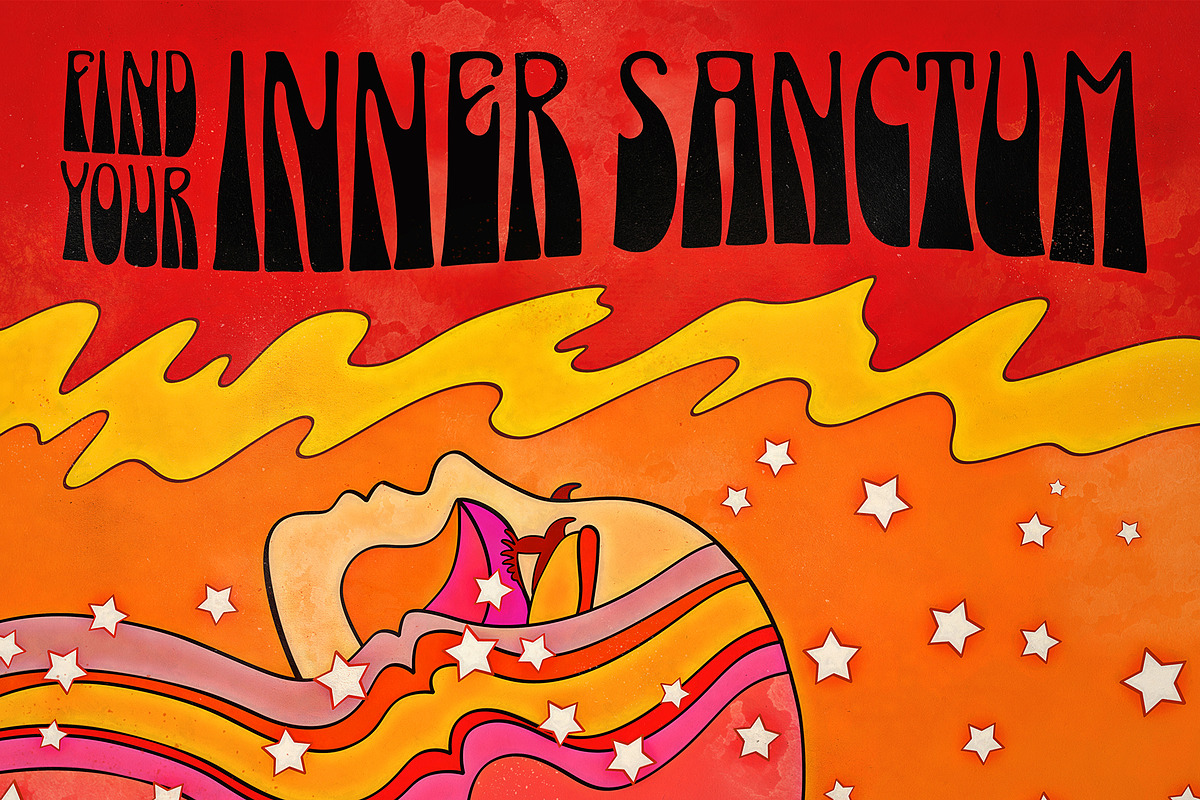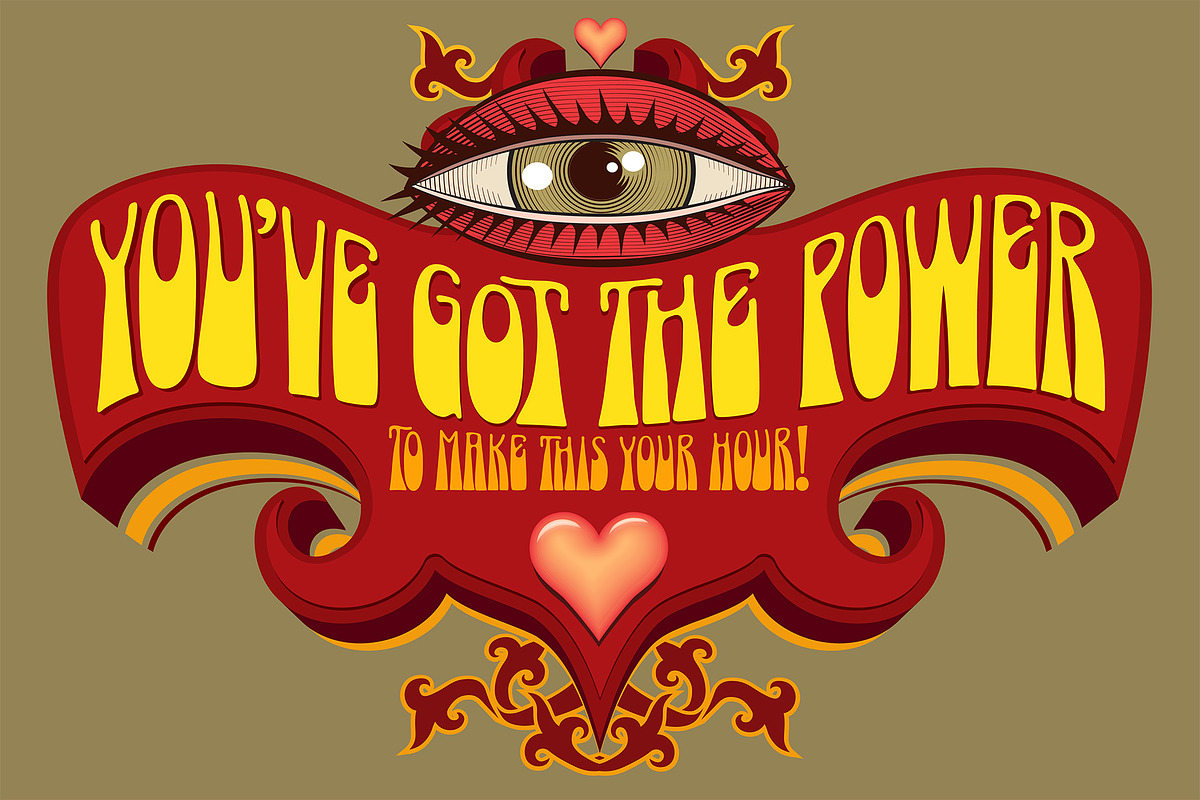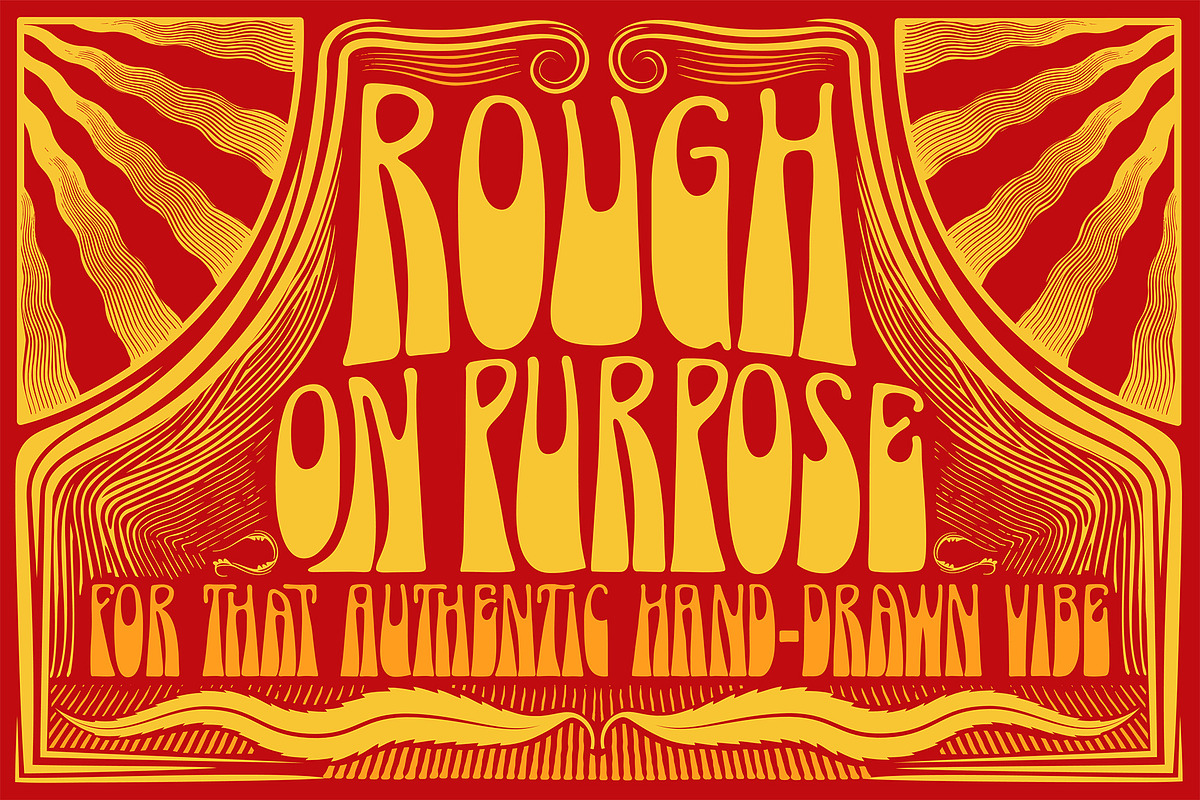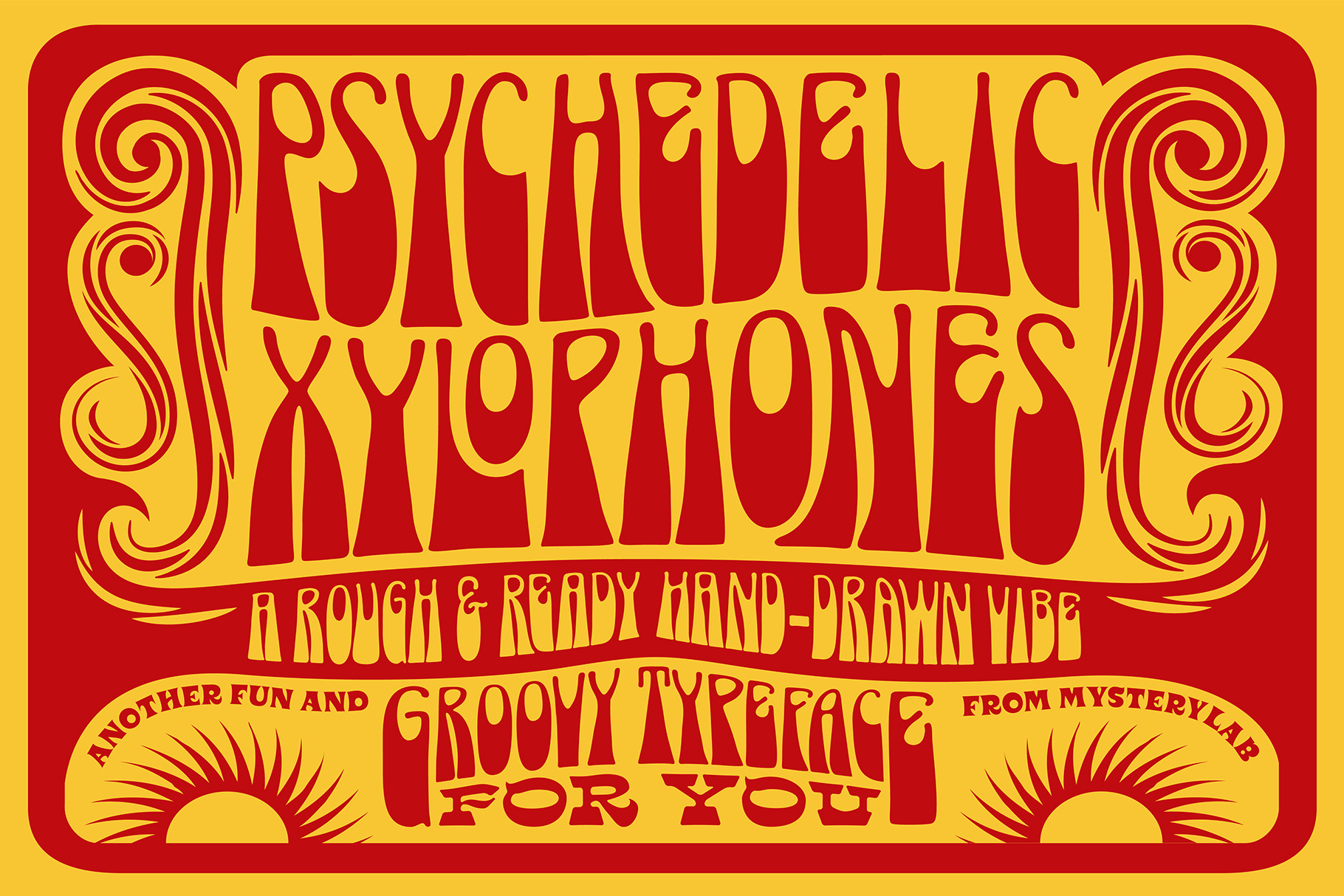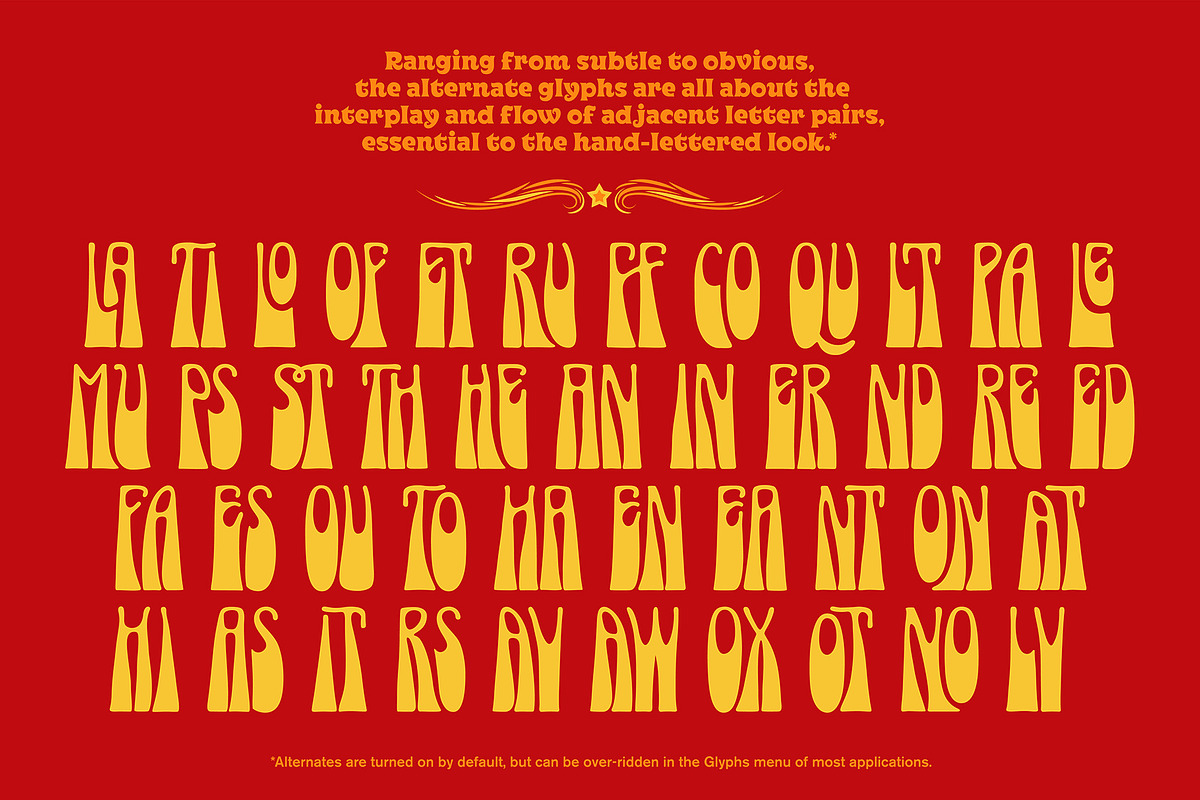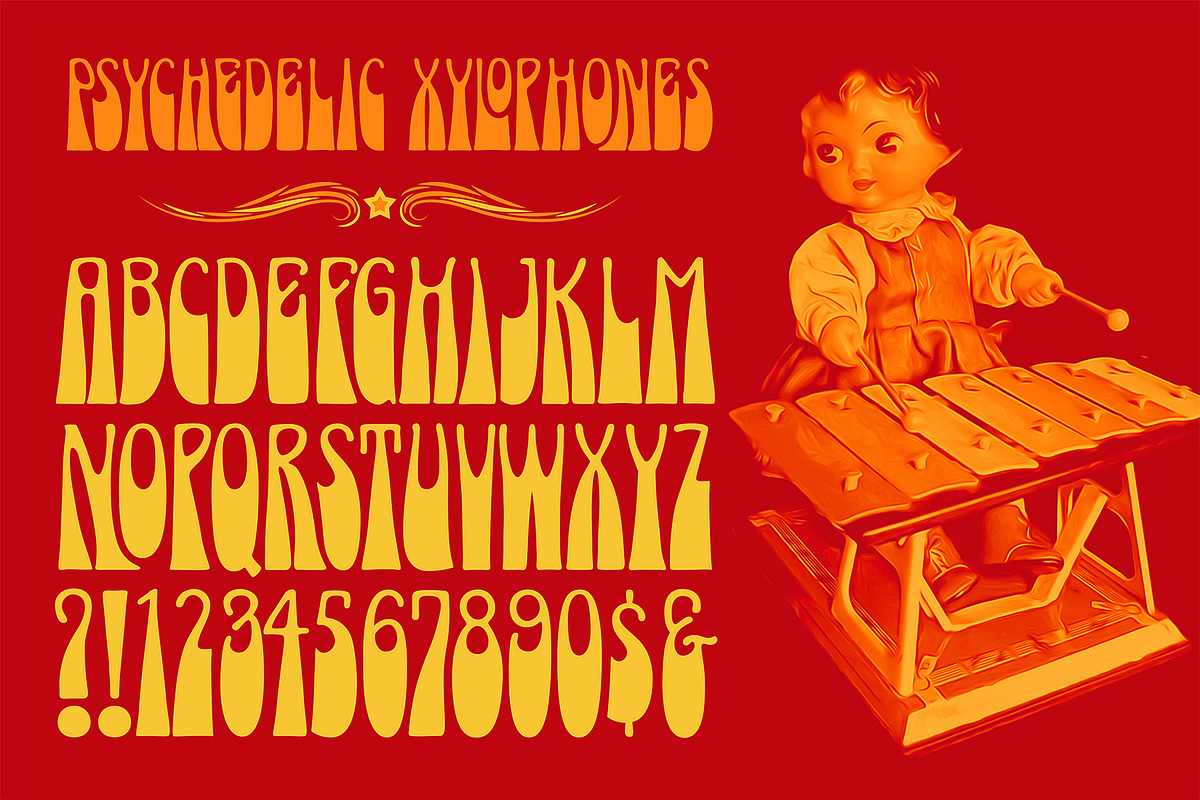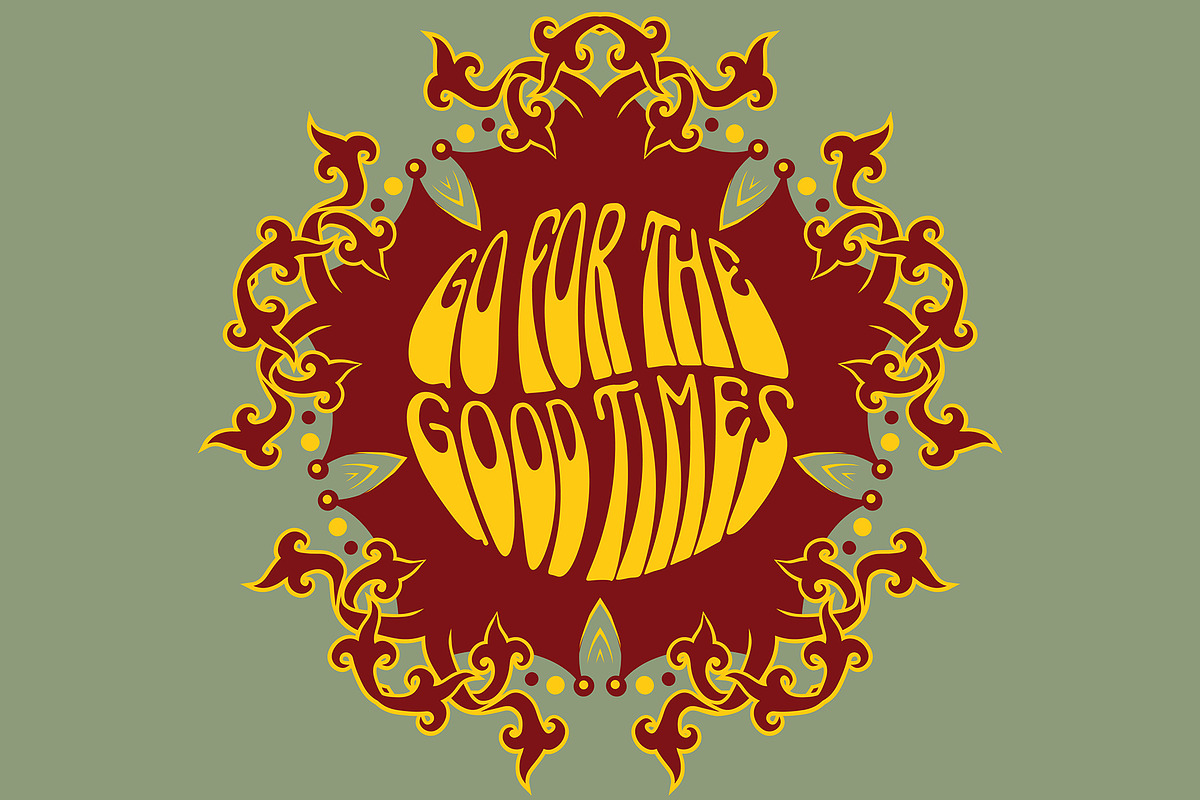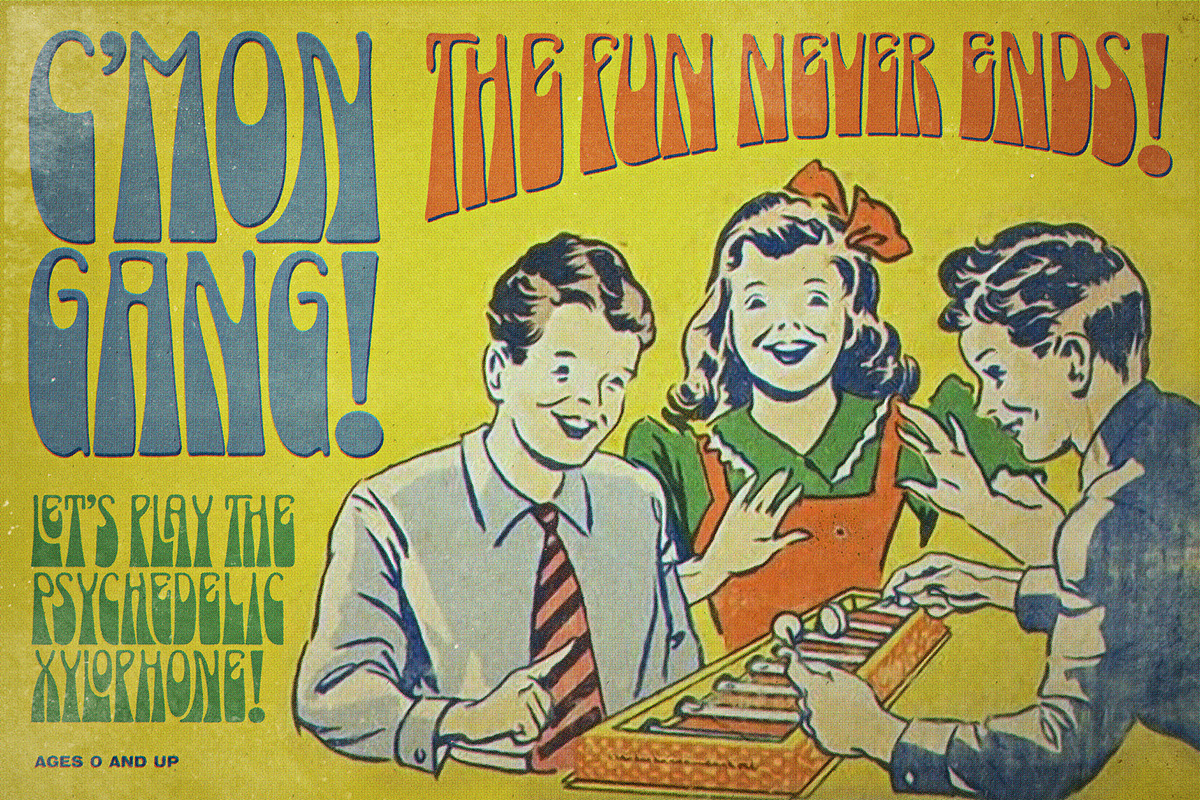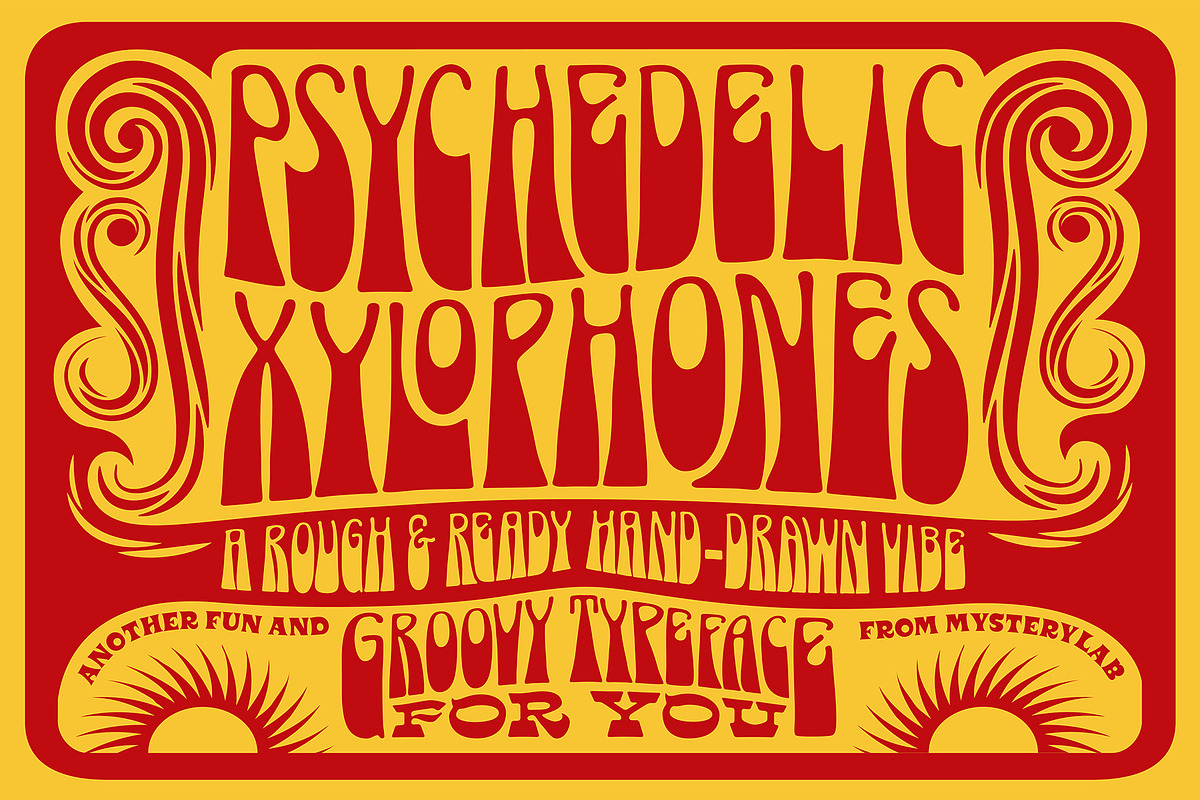
Psychedelic Xylophones Font
Perfect in its imperfection, Psychedelic Xylophones is a retro trippy hippie font that brings a hand-lettered groove to your text graphics. It features a large complement of two-character alternate glyphs that adds a subtle sway and an ebb-and-flow that results in some customized surprises and other more subtle variations to your text. It's great for that bendy, melty, warped headline psychedelic poster thing. Try it on retro t-shirt messages and surf/skate graphics, or a daring branding choice for drink or snack packaging.